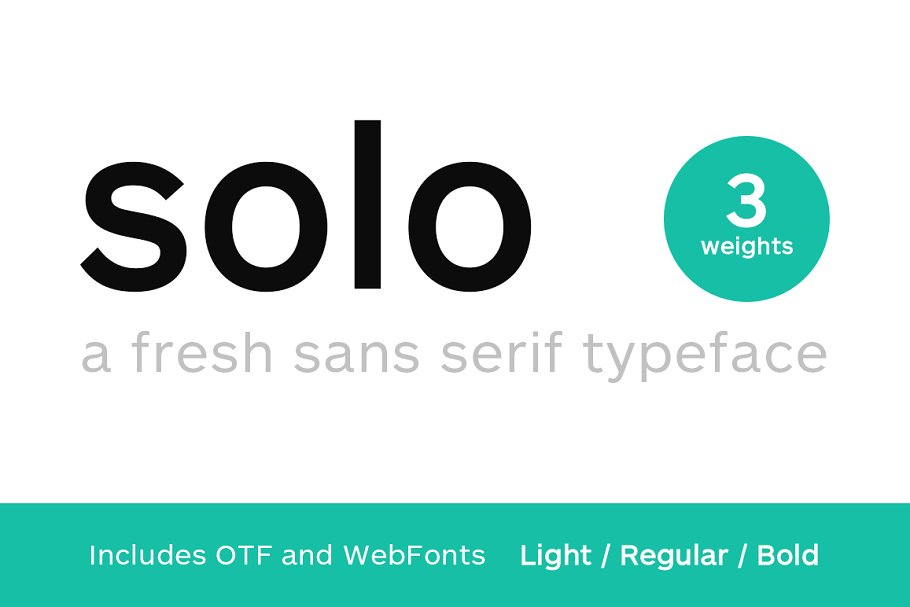
Solo Sans Font
The Solo Sans Font excels in various design applications including clean corporate branding, modern web interfaces, minimalist app designs, contemporary editorial layouts, sleek product packaging, professional presentation materials, streamlined signage systems, sophisticated business communications, and refined digital platforms. This versatile typeface brings effortless clarity to both digital interfaces and premium print applications.
What makes Solo Sans Font exciting is its perfectly balanced sans-serif construction that achieves optimal readability without sacrificing personality. The font features clean geometric letterforms with subtle humanistic touches and carefully refined proportions that create exceptional versatility across all applications. Its contemporary design philosophy combines Swiss typography principles with modern functionality, creating visual experiences that are both professional and approachable.
The Solo Sans Font family includes multiple weights and styles: Thin, Light, Regular, Medium, Bold, Black, and corresponding Italic variations. Each style maintains the signature clean character while offering designers comprehensive flexibility for sophisticated brand systems and contemporary layouts. The extensive character set supports international languages and includes mathematical symbols, currency marks, and refined punctuation marks perfect for professional communications.
The technical excellence of Solo Sans Font includes meticulously optimized letter spacing, precision-engineered curves, and flawless cross-platform compatibility. Whether you're designing corporate identities or complex information systems, this font delivers consistent performance. The balanced proportions work exceptionally well in both large-scale display applications and extended reading while maintaining optimal clarity and professional appearance.
Creative agencies appreciate how Solo Sans Font enhances brand communication through its refined contemporary aesthetic. The font's clean versatility makes it ideal for software companies, consulting firms, medical practices, and modern businesses seeking to convey professionalism and reliability. Its neutral character complements various design styles while establishing trustworthy brand personalities in competitive markets.
From detailed technical documentation to expansive architectural signage, Solo Sans Font maintains its professional presence across all applications. The font's robust construction ensures visual clarity in demanding professional environments while its refined details demonstrate exceptional typographic quality, making it an invaluable resource for designers creating memorable contemporary brand experiences.